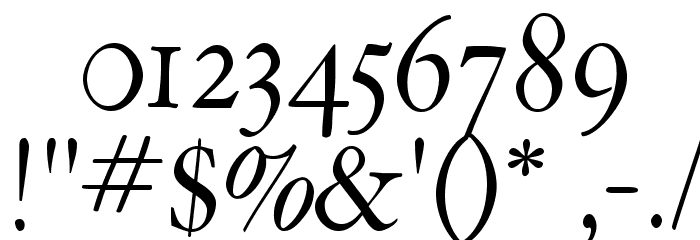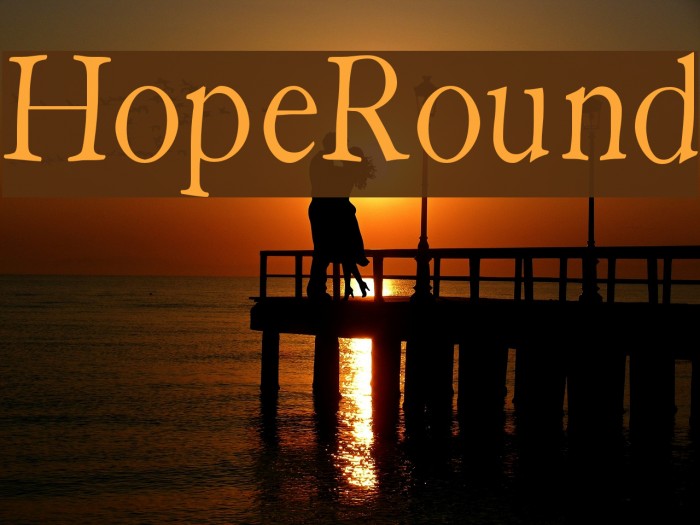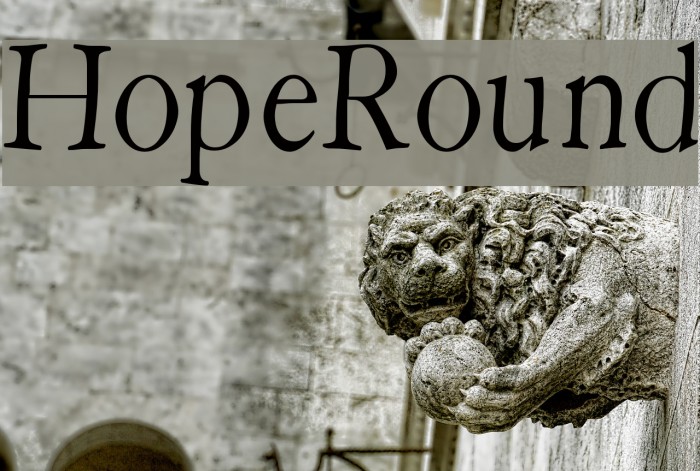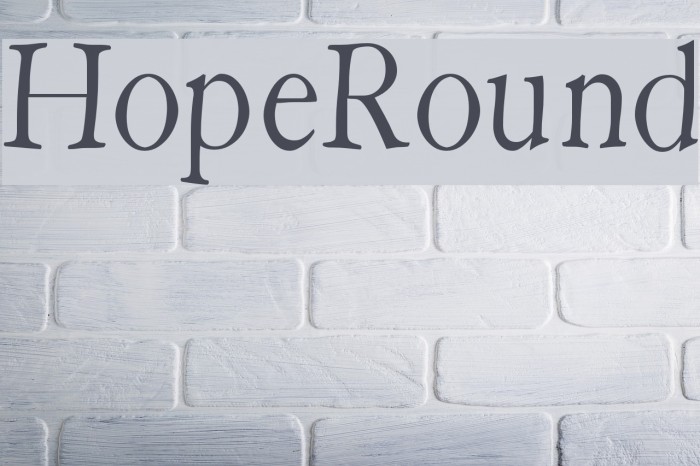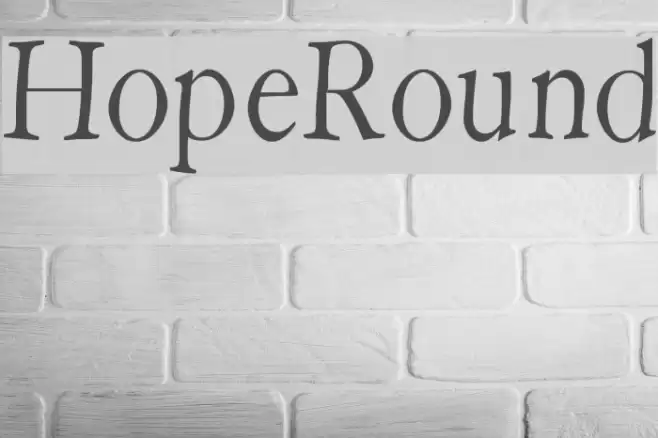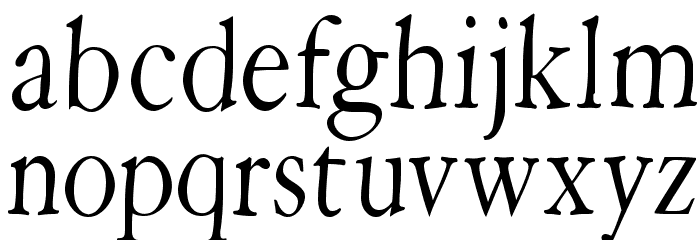
HopeRound Font
✎ Calligraphic
HopeRound Description
This font features a classic serif style with elegant, flowing lines and a slightly calligraphic touch. The uppercase letters are tall and stately, with a subtle contrast between thick and thin strokes, giving them a refined appearance. The lowercase letters maintain a consistent style, with rounded forms and gentle curves that enhance readability. Numbers are designed with a similar aesthetic, ensuring uniformity across all characters. Special characters are well-integrated, maintaining the overall elegance of the font. This font is suitable for projects that require a touch of sophistication and timeless appeal.